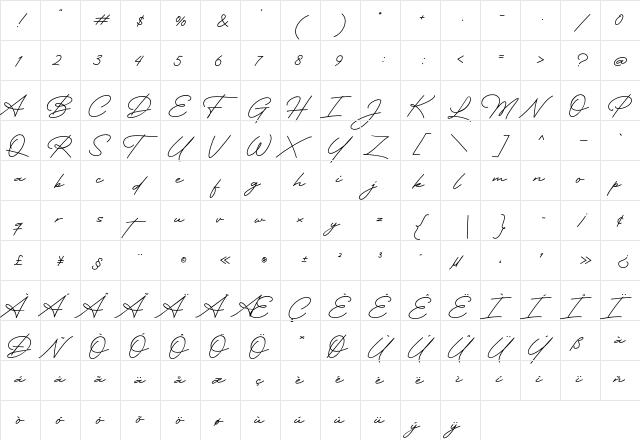
Bellarina Regular
Design Context for Bellarina Typeface
Bellarina is a composed and adaptable typeface that performs quietly and consistently across a wide range of design contexts.